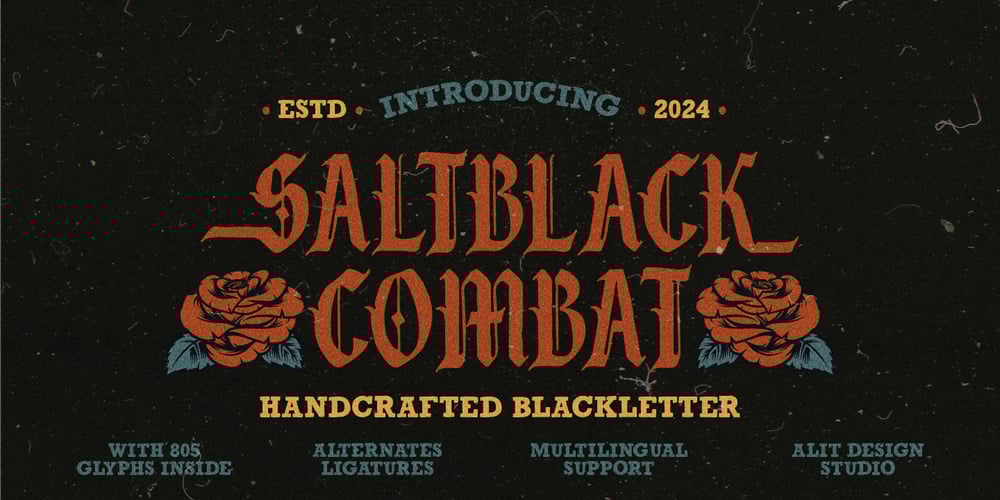
Saltblack combat
Saltblack combat font
Saltblack combat Font Family was designed by Alit Suarnegara and published by Alit Design. Saltblack combat contains 1 styles and family package options. Salt Black Combat is a bold and rugged blackletter font that embodies the spirit of vintage craftsmanship. Designed with a textured rough stamp effect, this font evokes a sense of history and power, perfect for projects that demand a strong, authentic aesthetic. Whether you’re working on branding, posters, packaging, or apparel, Salt Black Combat delivers a striking impact.Font Features: 805 Characters: Extensive character set providing versatility and creative freedom. Ligatures: Seamless connections between specific character pairs, adding elegance and fluidity to your designs. Alternatives: Multiple stylistic alternatives to give your work a unique and personalized touch. Multilingual Support: Comprehensive language coverage, supporting a wide range of languages for global reach. PUA Unicode: Easy access to all glyphs and swashes, ensuring hassle-free use across various design software. Salt Black Combat Blackletter Font is your go-to choice for vintage-inspired projects that require a bold, textured, and timeless typeface. Unleash its full potential in your creative endeavors!